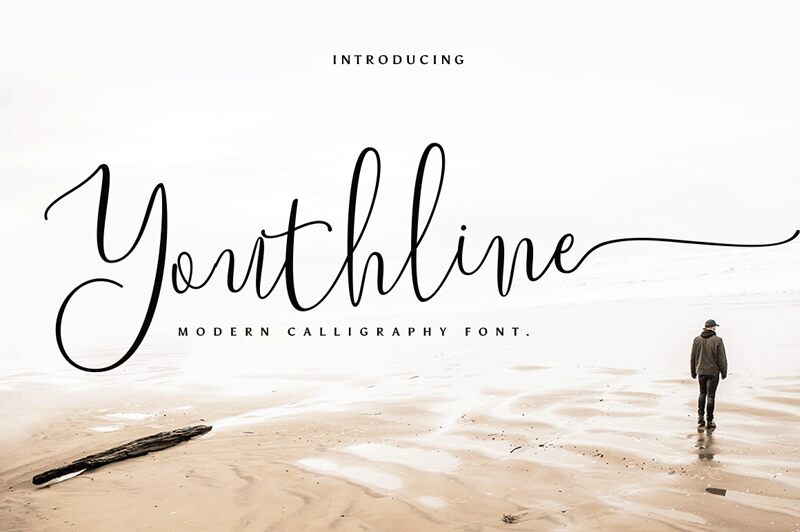
Youthline-Script
Youthline Script is a breathtaking calligraphy font designed by Sizimon.id. With its extra-light weight, it exudes elegance and sophistication, making it perfect for projects that require a touch of refinement. Use it on wedding invitations, greeting cards, or any other project where you want to convey an air of romance and luxury. The script style of the font lends itself well to brands that want to showcase their creativity and artistic flair. Its flowing lines and curves make it ideal for logos or branding materials for fashion boutiques, beauty salons, and spas. Let Youthline Script add a touch of class to your next project!